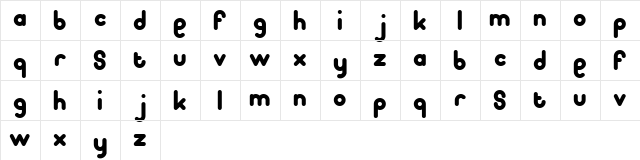
pooplatter Regular
| Foundry | defaulterror |
| Designer | Derek Clark |
Design Context for pooplatter Typeface
pooplatter offers clean, dependable letterforms without strong stylistic allegiance, making it a practical choice for designers who need flexibility.